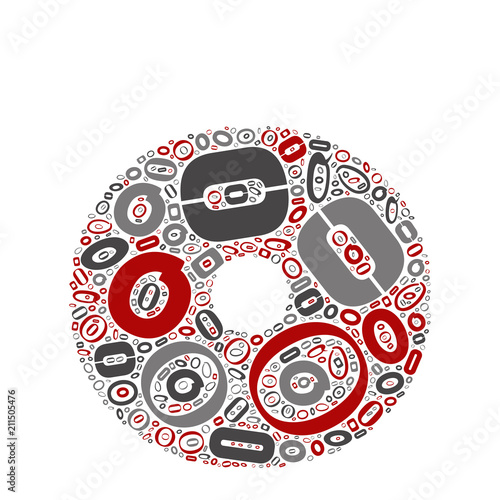
Vector conceptual red, gray and black playful funny education font made of letter collection or group on character shapes isolated on white background. A modern art alphabet learning element design